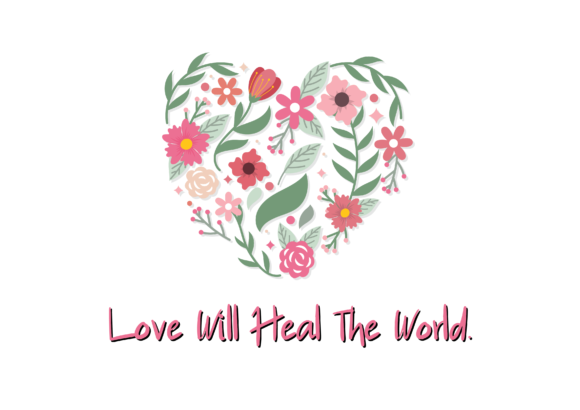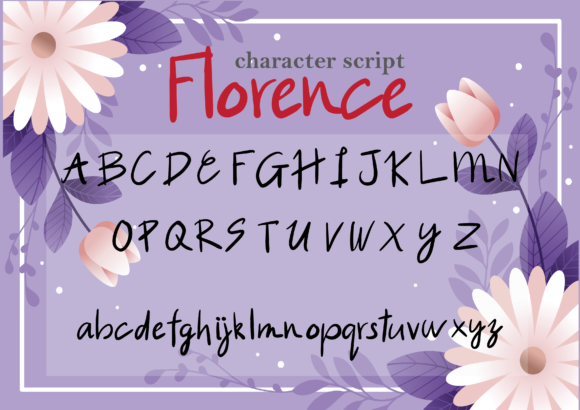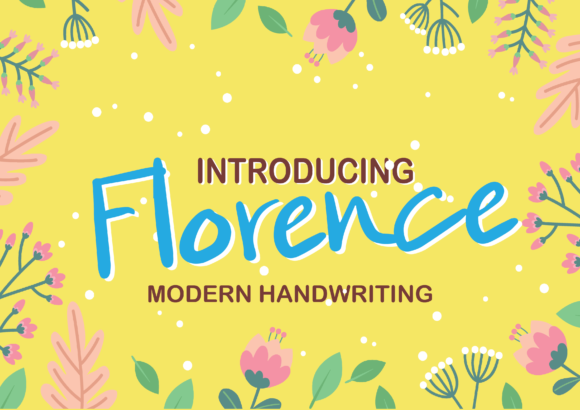
Discover the Charm of Florence Font: Elevate Your Designs with Elegance
Are you on the hunt for a font that exudes charm and elegance? Look no further than the stunning Florence Font. This beautiful handwritten font is sure to captivate your audience with its unique character and versatility. In this article, we’ll dive into the world of Florence Font and explore its features, uses, and benefits for designers and crafters.
What is Florence Font?
Florence Font is a gorgeous handwritten font that boasts a distinctive, cursive style. Its elegant and charming appearance makes it perfect for a wide range of design projects, from wedding invitations and branding materials to social media graphics and blog posts. The font’s unique character is sure to add a touch of sophistication and whimsy to any design.
Key Features of Florence Font
- Handwritten style: Florence Font features a beautiful, handwritten style that adds a personal touch to any design.
- Elegant and charming: The font’s elegant and charming appearance makes it perfect for designs that require a touch of sophistication.
- Versatile: Florence Font can be used in a variety of design projects, from print materials to digital graphics.
- Easy to read: Despite its ornate style, Florence Font is surprisingly easy to read, making it perfect for body text and headlines.
Why Choose Florence Font?
So, why should you choose Florence Font for your next design project? Here are just a few compelling reasons:
- Unique character: Florence Font has a distinctive character that will set your designs apart from the crowd.
- Flexibility: The font can be used in a variety of design projects, from formal to informal.
- Elegance: Florence Font adds a touch of elegance and sophistication to any design.
Using Florence Font in Your Designs
Florence Font is an incredibly versatile font that can be used in a wide range of design projects. Here are a few ideas to get you started:
- Wedding invitations: Florence Font is perfect for wedding invitations, adding a touch of elegance and romance to your designs.
- Branding materials: Use Florence Font to create stunning branding materials, such as logos, business cards, and letterheads.
- Social media graphics: Add a touch of whimsy and charm to your social media graphics with Florence Font.
- Blog posts: Use Florence Font to create eye-catching headlines and add a personal touch to your blog posts.
Tips for Using Florence Font
Here are a few tips for getting the most out of Florence Font:
- Use it sparingly: While Florence Font is beautiful, it can be overwhelming if used too much. Use it sparingly to add a touch of elegance to your designs.
- Pair it with other fonts: Florence Font pairs well with a variety of other fonts. Experiment with different pairings to find the perfect combination for your design.
- Experiment with colors: Florence Font looks stunning in a variety of colors. Experiment with different colors to find the perfect shade for your design.
Florence Font is a stunning handwritten font that is sure to elevate your designs with its elegance and charm. Its unique character, versatility, and ease of use make it perfect for a wide range of design projects. Whether you’re a designer or crafter, Florence Font is a must-have font that will add a touch of sophistication and whimsy to any design.